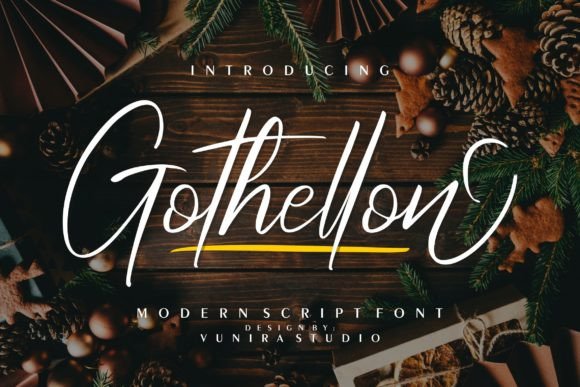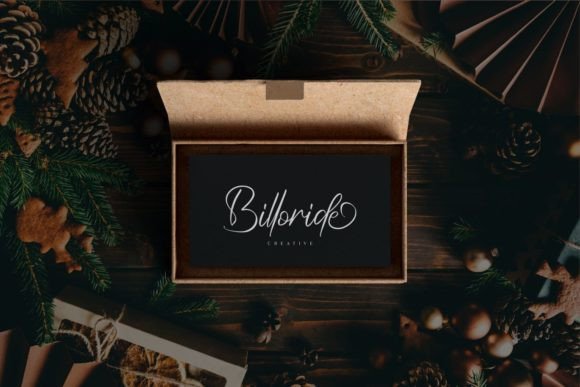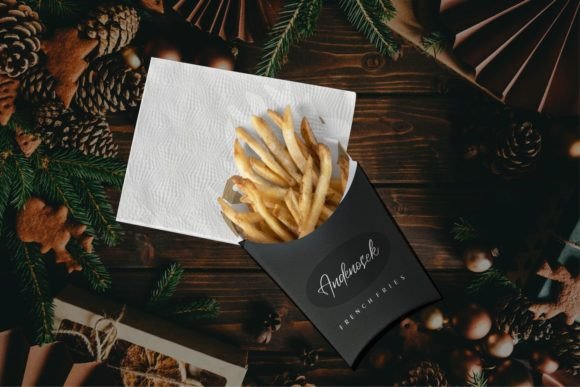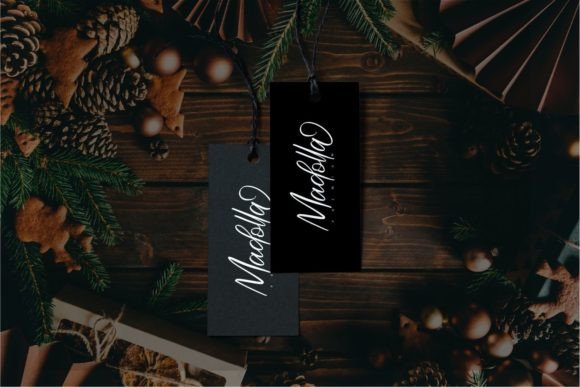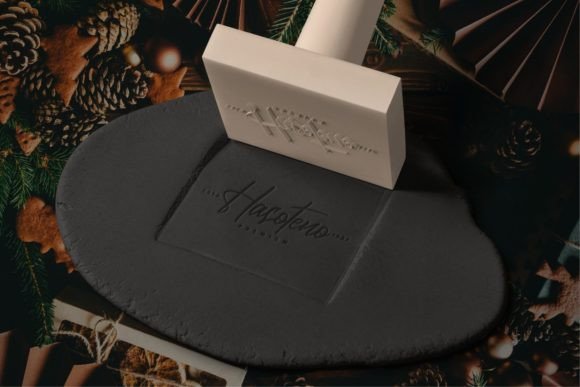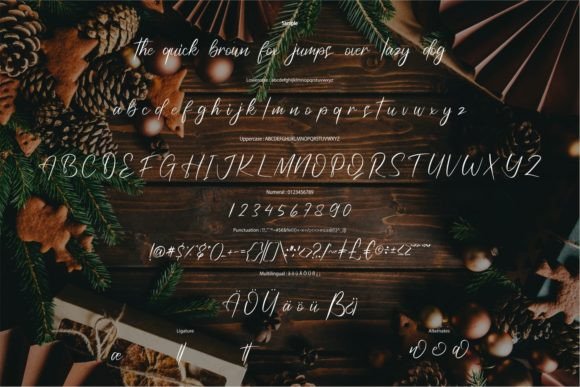
Gothellon Font
About Gothellon Font
Gothellon is a beautiful and refined script font. It has a classy, elegant, and modern look that can be used for logos, branding, invitations, stationery, wedding designs, social media posts, and much more!